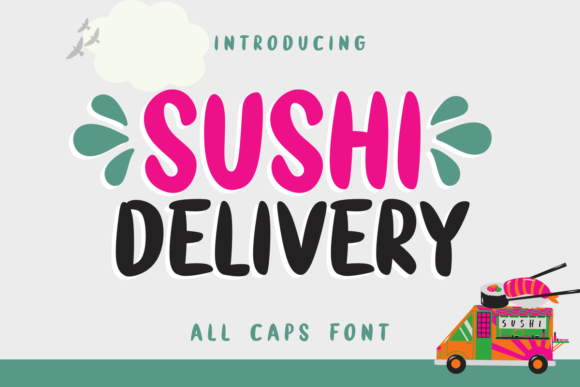
Introducing Sushi Delivery Font - A Culinary Delight for Your Design Palette!
Feast your eyes on Sushi Delivery Font, a captivating display font that's as fresh and delectable as a platter of assorted sushi. With its playful, all-caps design, this font exudes an irresistible charm that will elevate your creative projects to new heights.
Like a skilled sushi chef, Sushi Delivery Font combines simplicity and elegance to create a visually stunning experience. Its clean lines and bold strokes make it incredibly versatile, allowing it to seamlessly adapt to a wide range of designs. Whether you're crafting eye-catching YouTube thumbnails, designing posters for a food festival, or creating playful social media graphics, Sushi Delivery Font is your go-to ingredient for a dash of delightful uniqueness.
Step into a world of creative possibilities with Sushi Delivery Font. It's the perfect font to add a touch of whimsy and playfulness to your designs. Imagine the smiles on your audience's faces as they devour your visually captivating content.
Don't settle for ordinary fonts that blend into the background. Embrace the vibrant and delightful Sushi Delivery Font, and let your creativity dance to its unique rhythm. Let the world savor the flavor of your designs, and experience the joy of creating unforgettable visual experiences.